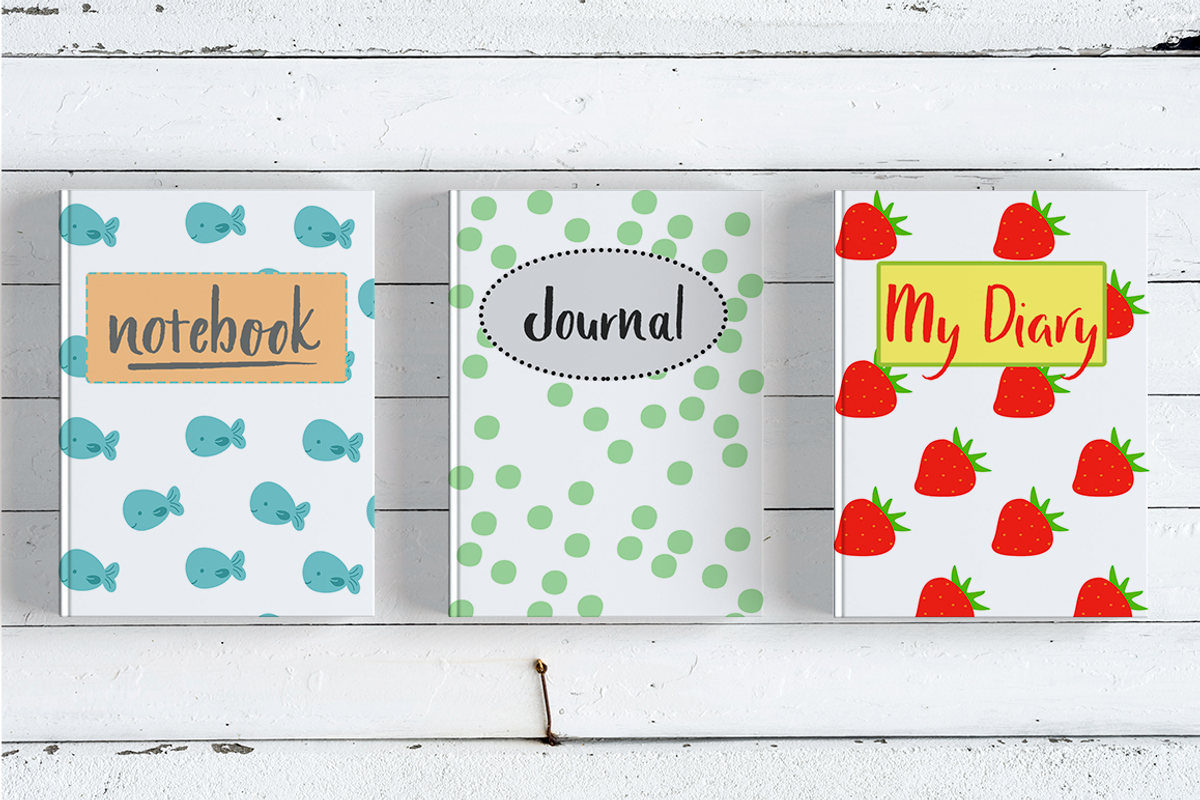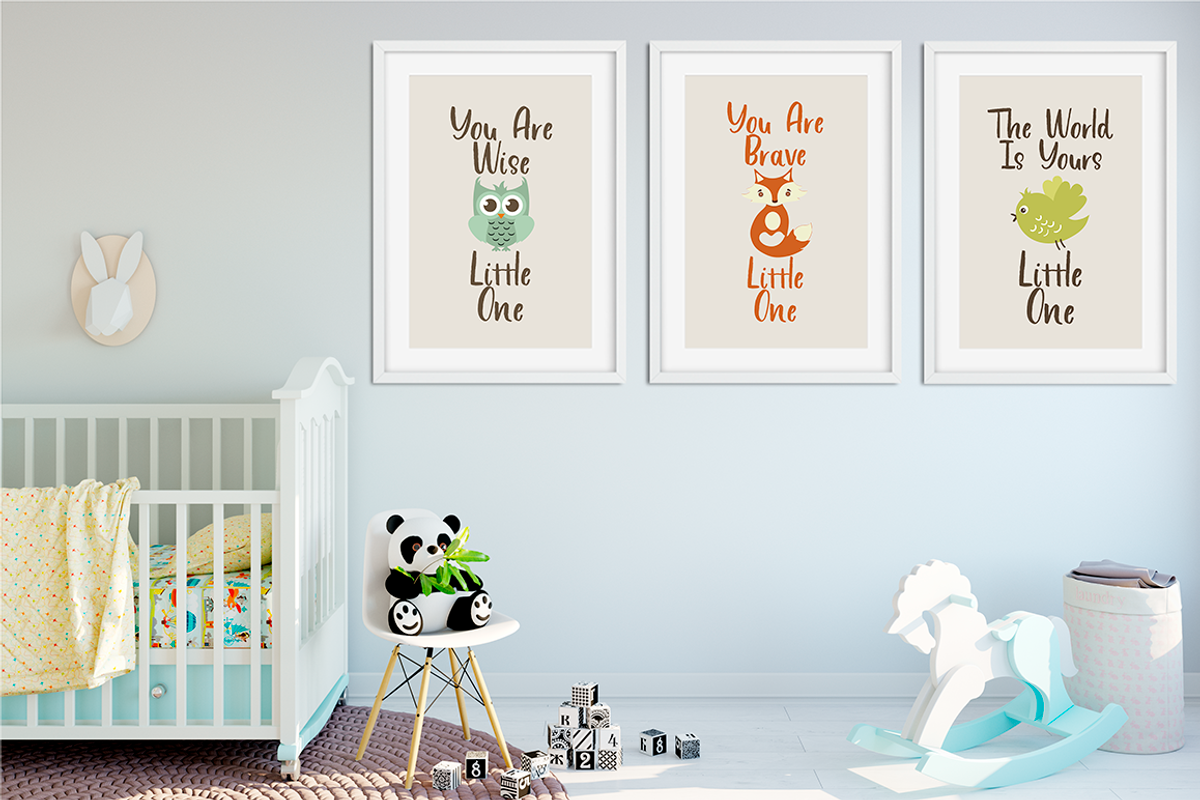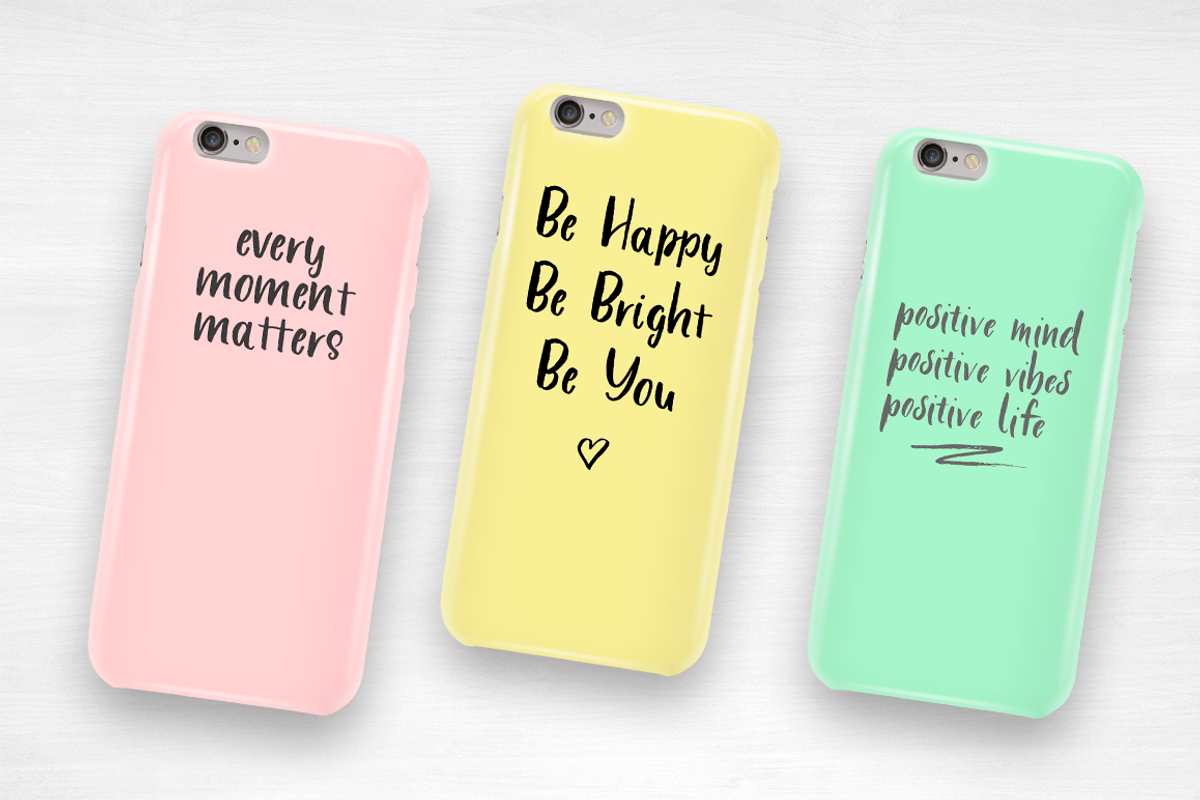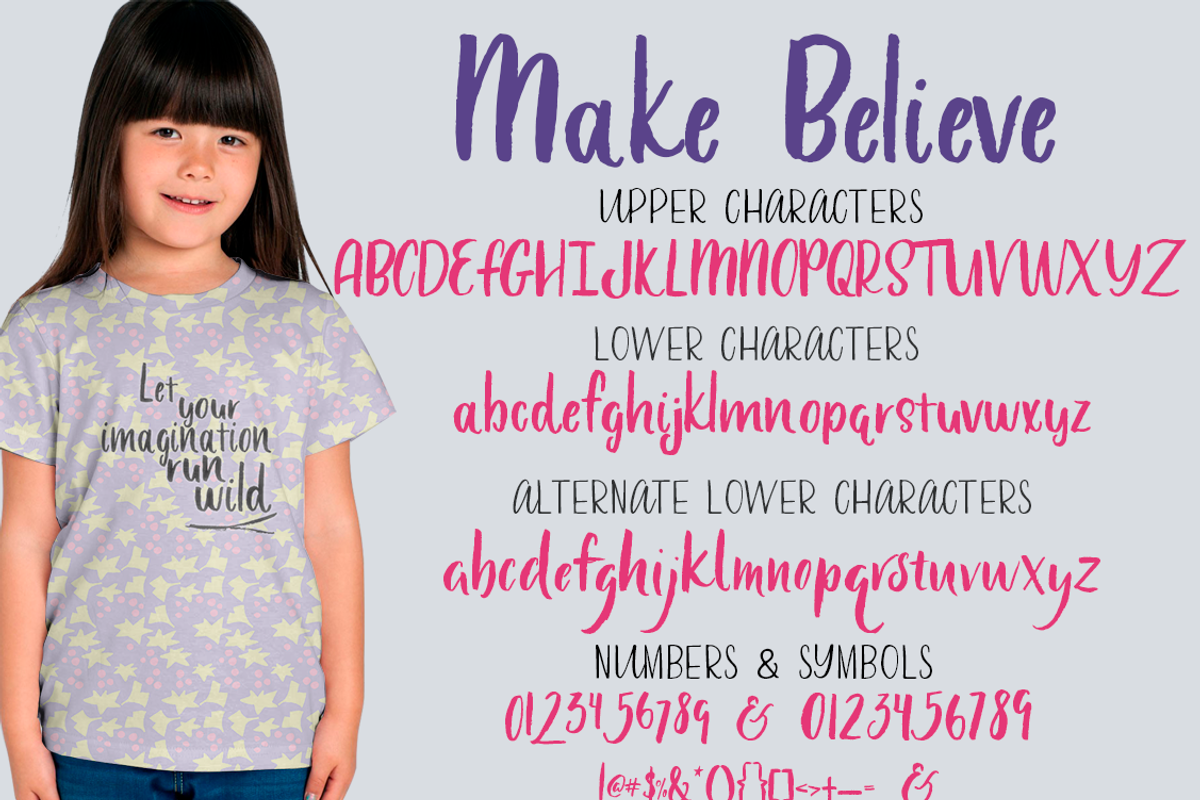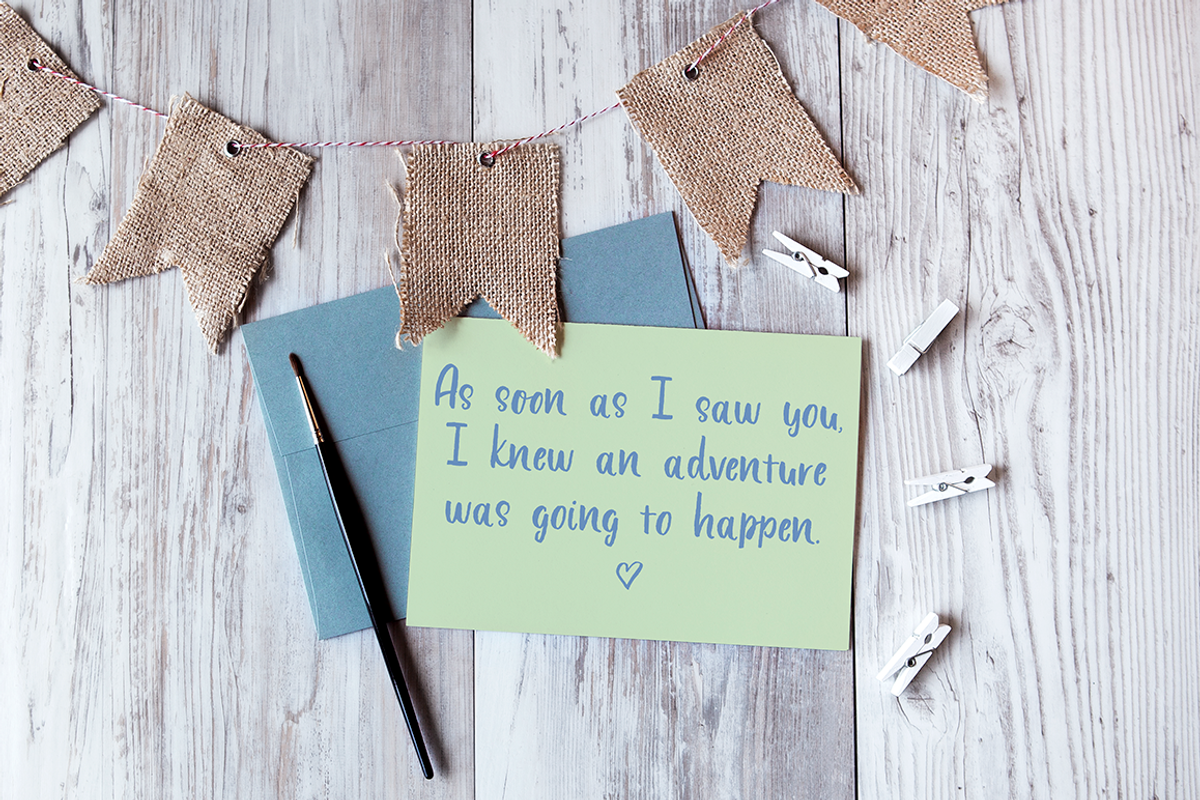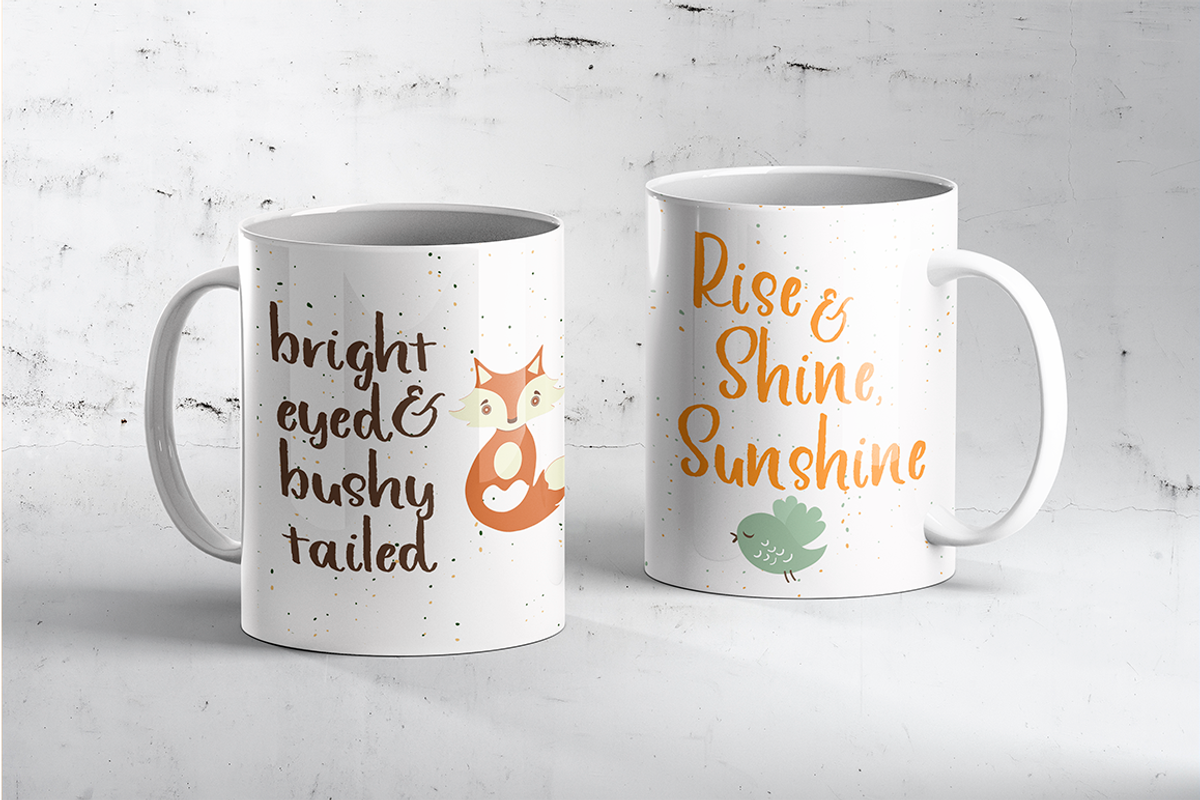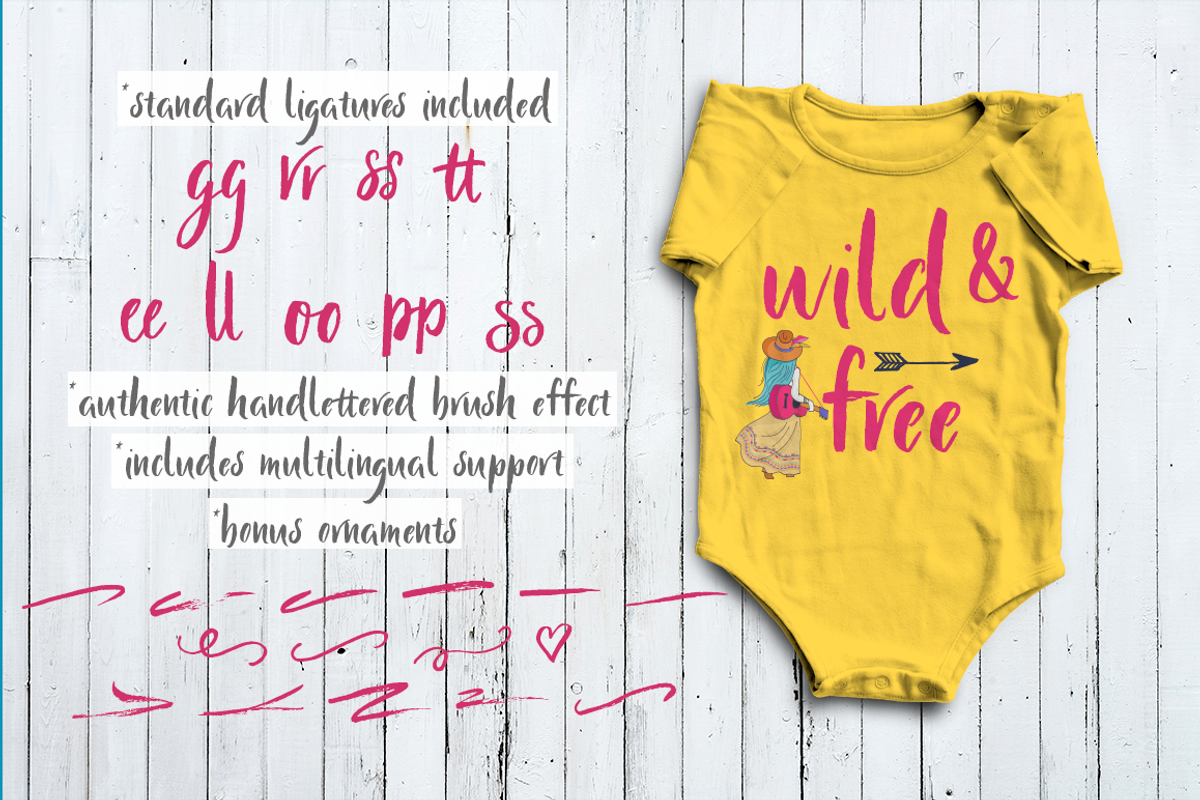
Make Believe Font
Make Believe Font! A fun font trio for dreamers. Make Believe features curvy, relaxed letters with lots of realistic hand lettering characterists. Also included is a lowercase alternative font that is a little more rock'n roll and 16 unique swashes to help complete your project. Make Believe is perfect for product packaging, prints, magazine layouts, and branding projects.
Included in this font trio: uppercase letters, lowercase letters, and an alternative lowercase font featuring 16 unique swashes. Mix and match for unique, creative designs!
16 unique swashes are found in the Alt font, uppercase letters A-O. A cheat sheet guide is included!
- Make Believe includes loads of standard ligatures so that your font always has a special, hand lettered look to it!